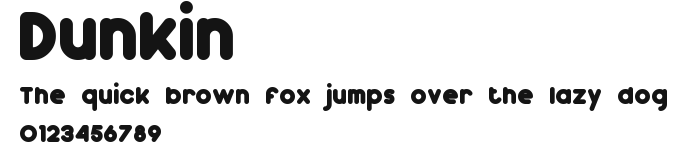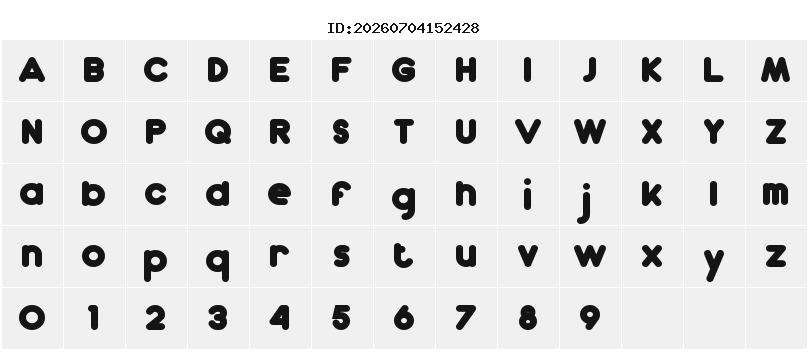
• Font Name: Dunkin
• Designer: Neale Davidson
About Dunkin.ttf
Dunkin.ttf is a modern, elegant sans-serif font designed for ultimate readability and visual harmony. Perfect for branding, headlines, web design, and print materials.